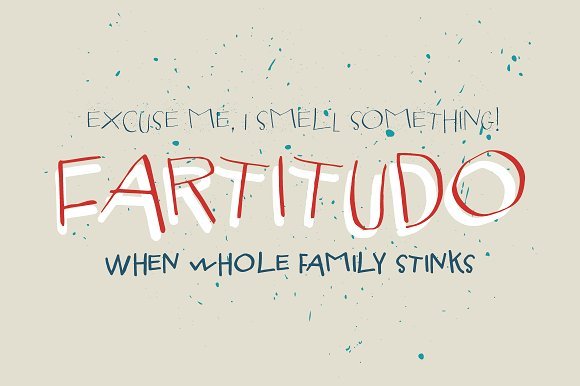
The Birth of a Bouncy Branding Beauty
Have you ever been stuck in a creative rut, desperately searching for that spark to ignite your next design project? For many of us, it’s the moment when we stumble upon the perfect font that sets our imagination ablaze. For designers, finding the right font can make all the difference between a good design and a great one.
Enter Fartitudo Font, a playful and modern sans-serif family designed specifically for packaging, posters, labels, and t-shirts. This vibrant font is not just a pretty face; it’s a valuable tool for designers looking to add a dash of whimsy and fun to their creations. With Fartitudo Font, the possibilities are endless, and the results are guaranteed to be eye-catching and engaging.
Fartitudo Font Key Features
- Unique Characteristics: Fartitudo Font boasts a unique, hand-drawn design with intricate details and subtle imperfections, giving it a distinctive and artistic feel.
Fartitudo Font Review
Fartitudo Font is a quirky, sans-serif typeface designed to bring a touch of humor and whimsy to your digital projects. I must say, I was initially drawn in by its unique personality, and I think it’s a great choice for those looking to add a bit of fun to their designs. ✨
Here are some of the things I like about Fartitudo Font:
- Uniquely designed characters that will add a touch of humor to your designs ✨
- Available in a range of weights and styles, making it easy to use in various contexts
- Works well for titles, headings, and short blocks of text
However, I do have some reservations about Fartitudo Font. Here are some limitations I’ve noticed:
- May not be the best choice for large blocks of text, as it can become overwhelming and difficult to read ⚠️
- Lack of language support for certain languages and scripts, which may limit its use in multilingual projects ⚠️
Overall, I think Fartitudo Font is a fun and quirky typeface that can add a unique touch to your designs. While it may not be the most versatile or practical choice, it’s definitely worth considering if you’re looking for something a bit different. Just be sure to use it judiciously and in moderation, lest it overwhelm your design.
Fartitudo Font Practical Application Guide
Tips for Getting the Most Out of Fartitudo Font
To get the most out of Fartitudo Font, use it in bold or italic styles to add emphasis to your text. You can also pair it with other fonts to create a unique and visually appealing design.
Fartitudo Font is ideal for use in logo designs, branding materials, and advertising campaigns. Its unique and playful style makes it perfect for creating eye-catching and memorable designs.